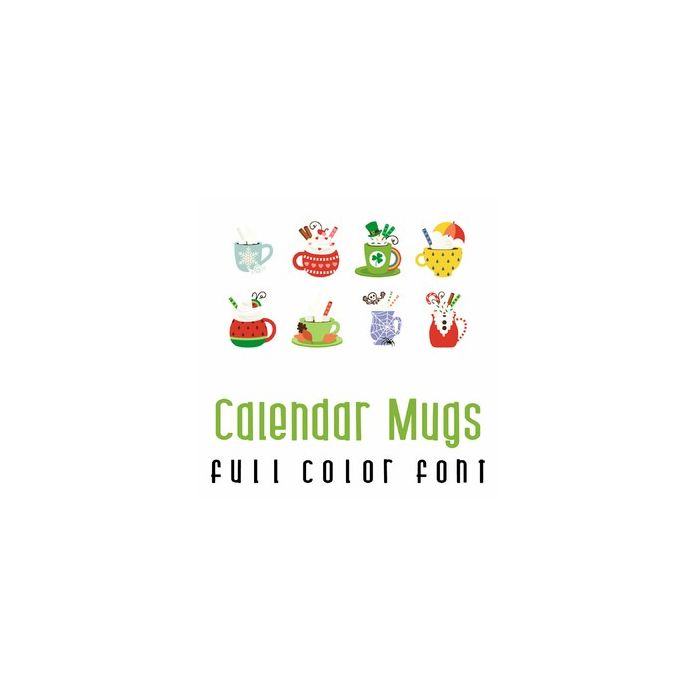
This adorable full-color doodlebat font features seasonal mugs for each month of the year. Perfect for cards, crafts, gifts, decor, scrapbook pages, planner stickers, and more!